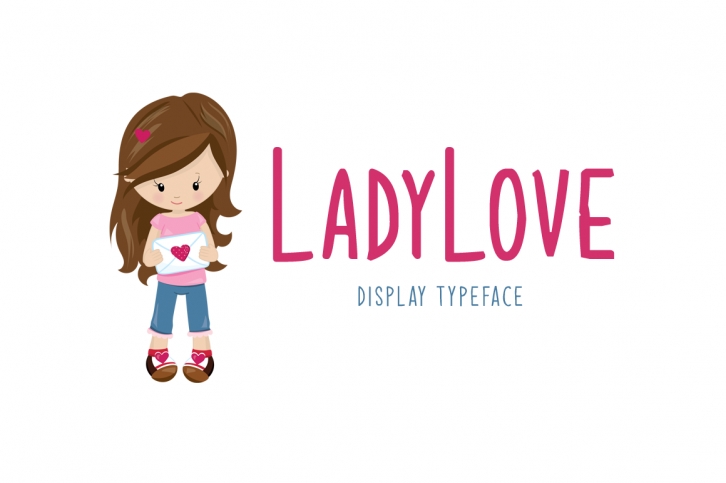
Ladylove is a beautiful font that was designed by Seemly Fonts. It's a great choice for designers and creatives who need such a font. It was released on January 10, 2020 and the file size is 1.46 MB. Ladylove may give a more youthful, expressive and casual look to your project. It is a very beautiful, refined, elegant, and high-quality font.